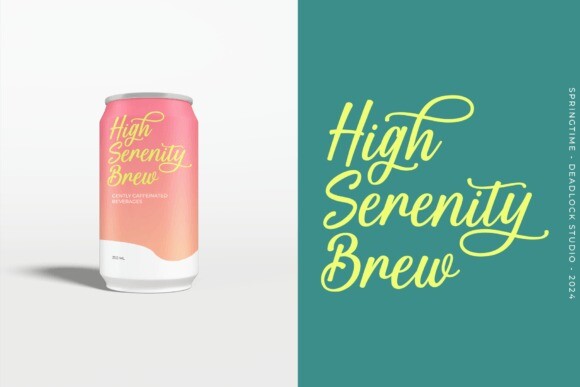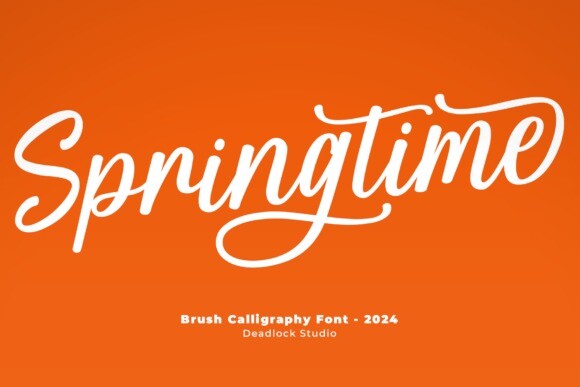
Springtime Font
Springtime Font – where brush calligraphy meets classy sporty masculinity. This latest font creation is a harmonious blend of dynamic brush strokes and sophisticated style, designed to bring energy and refinement to your projects.
Springtime exudes a bold and masculine flair, combining the fluidity of brush calligraphy with a touch of class and sporty edge. Its sleek lines and energetic strokes capture the essence of both dynamism and sophistication.